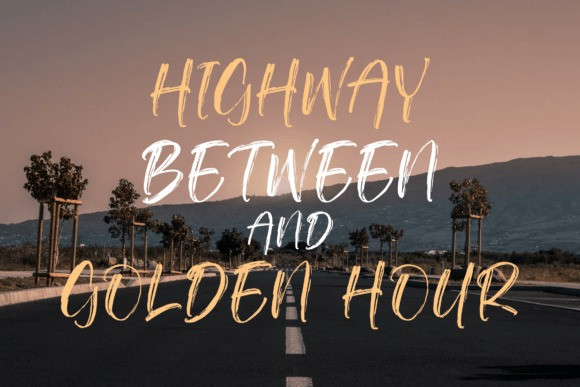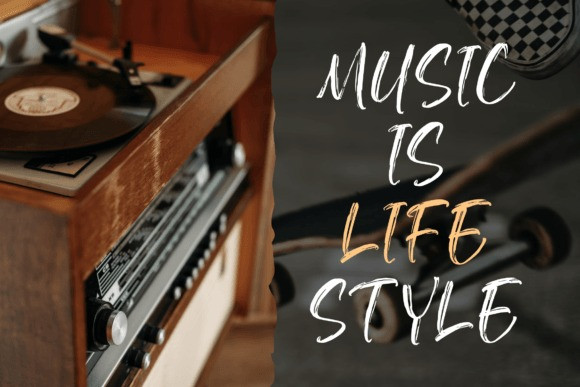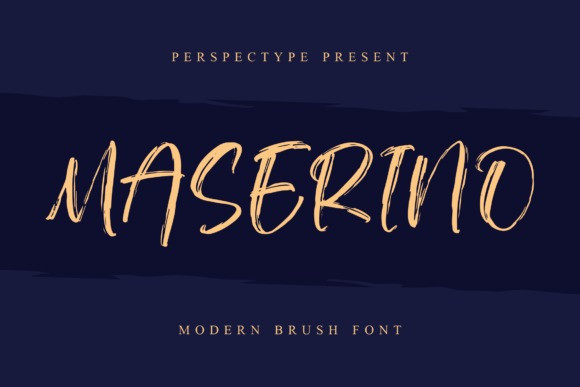
Maserino Font
Maserino – Modern Brush Font is suitable for any projects such as logos, branding projects, homeware designs, product packaging, mugs, quotes, posters, shopping bags, t-shirts, book covers, name cards, invitation cards, greeting cards, labels, photography, watermark, special events, and all your other lovely projects that need a beautiful script taste.